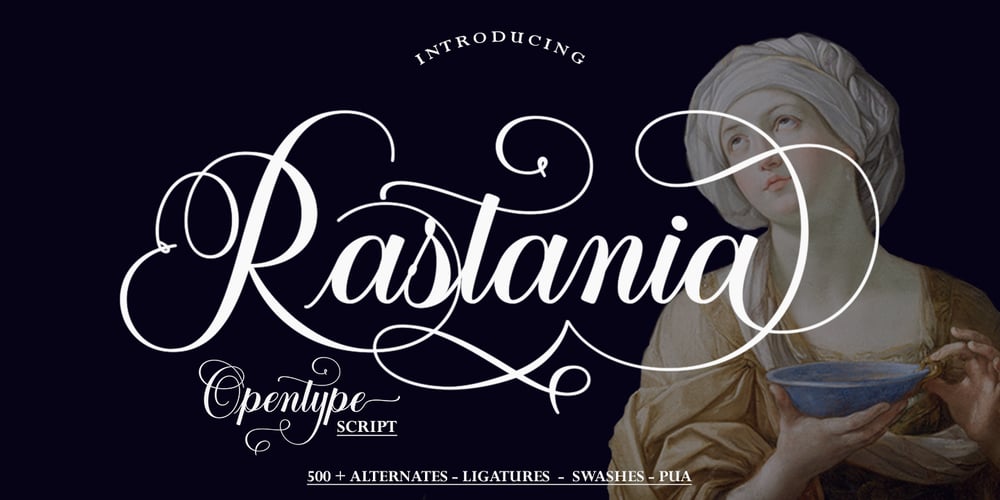
Rastania Script Font Family was designed by Imam Muhajir and published by Straight.Co. Rastania Script contains 3 styles and family package options. Rastania Script is a calligraphy script font that comes with lovely alternates character. a mixture of from copperplate calligraphy with handlettering style. Designed to convey style elegance. Rastania is attractive like a smooth, clean, feminine, sensual, glamorous, simple and highly legible typeface. Its classic style is perfect to be applied in any type of formal pieces such invitations, labels, menus, Logos, fashion, make up, stationery, letterpress, romantic novels, magazines, books, greeting / wedding cards, packaging, labels.Rastania features 498 + glyphs and 283 + alternative characters. including multiple language support. With OpenType features with stylistic alternates, ligatures and swash characters, that allows you to mix and match pairs of letters to fit your design.To enable the OpenType Stylistic alternates, you need a program that supports OpenType features such as Adobe Illustrator CS, Adobe Indesign & CorelDraw X6-X7, Microsoft Word 2010 or later versions. (Windows), Font Book (Mac) or a software program such as PopChar (for Windows and Mac).